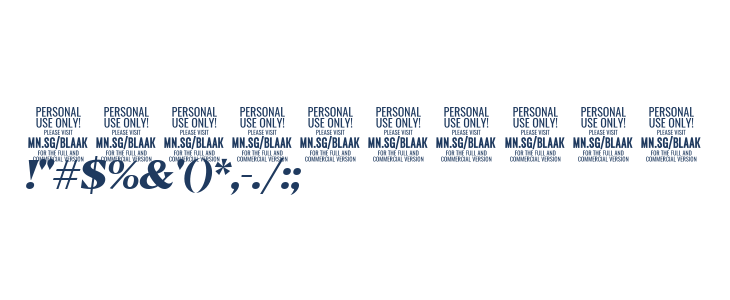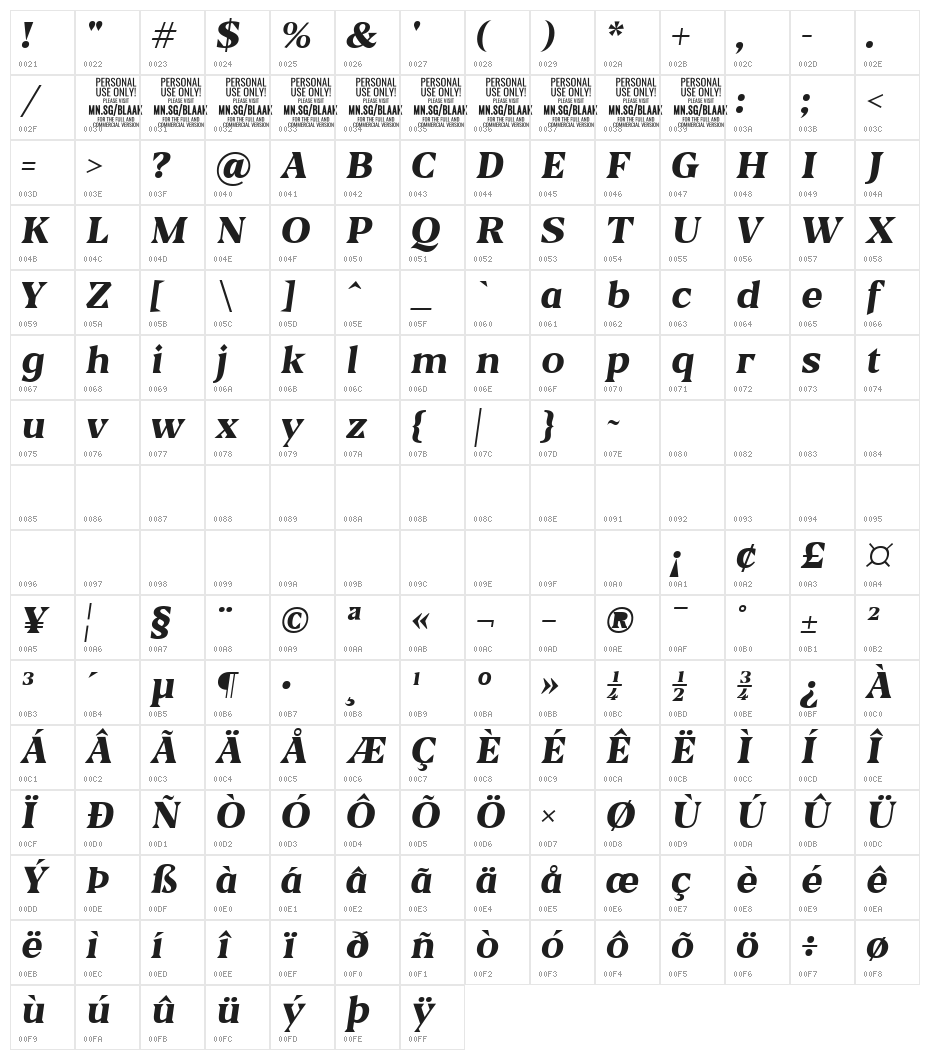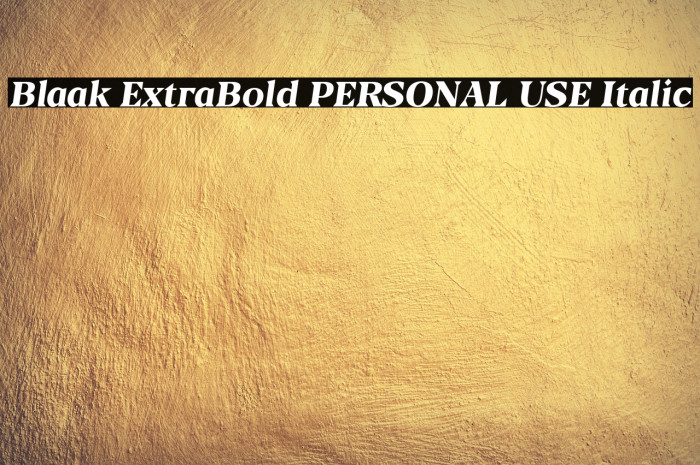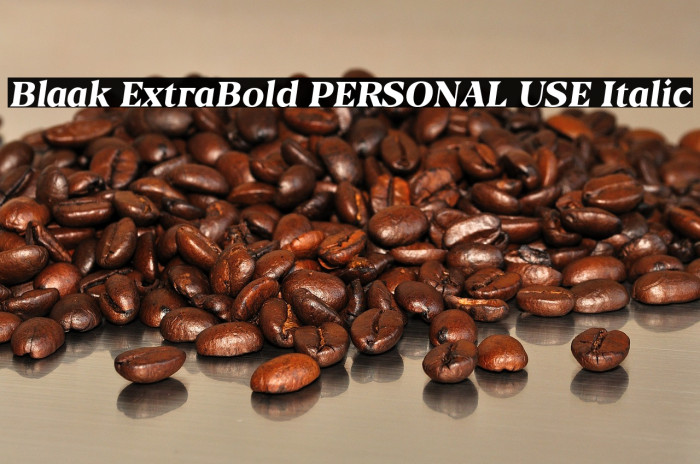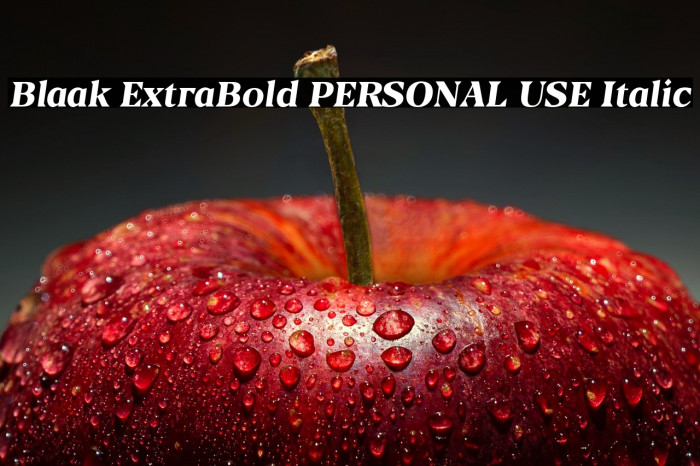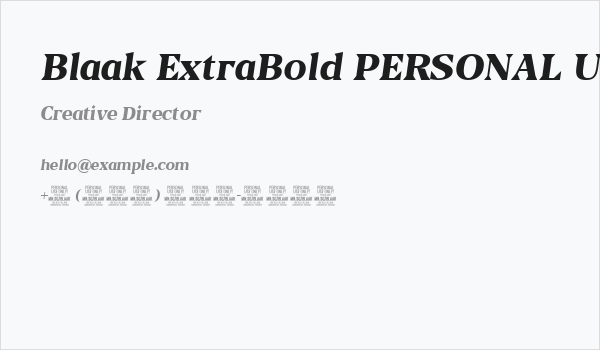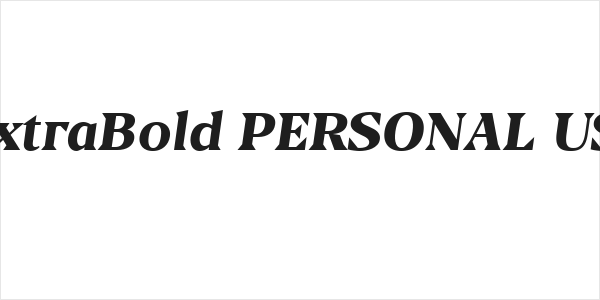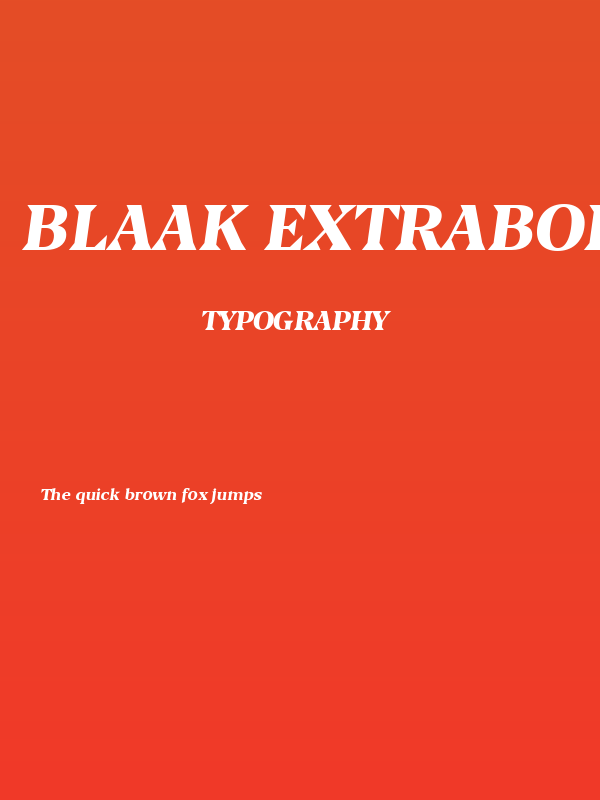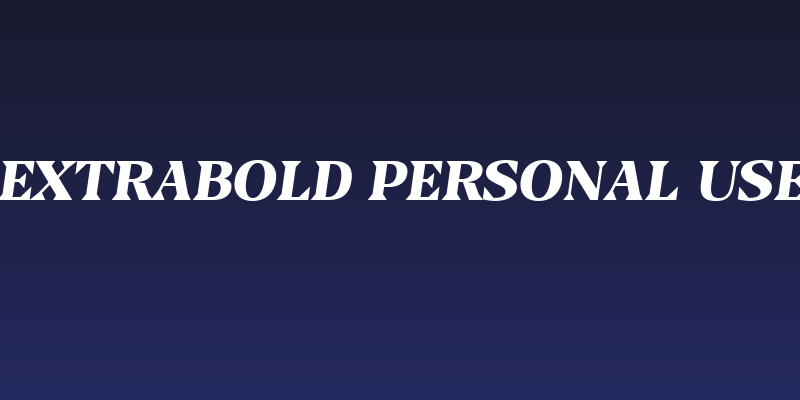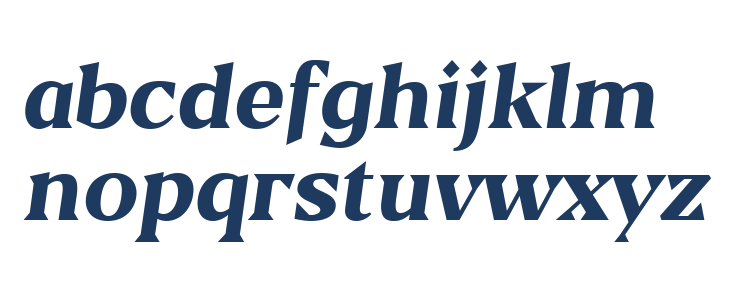
Blaak ExtraBold PERSONAL USE Italic Font
Blaak ExtraBold PERSONAL USE Italic Description
This font features a bold and dynamic style with a strong presence. The italicized characters add a sense of movement and elegance, making it suitable for impactful designs. The uppercase letters are robust and commanding, while the lowercase letters maintain a consistent flow. The numerals and special characters are designed to complement the overall aesthetic, ensuring versatility across various applications. The font's high contrast between thick and thin strokes enhances readability and adds a touch of sophistication.
| Proposed Projects | Ideal for branding, headlines, posters, and editorial design where a strong, elegant impact is desired. |